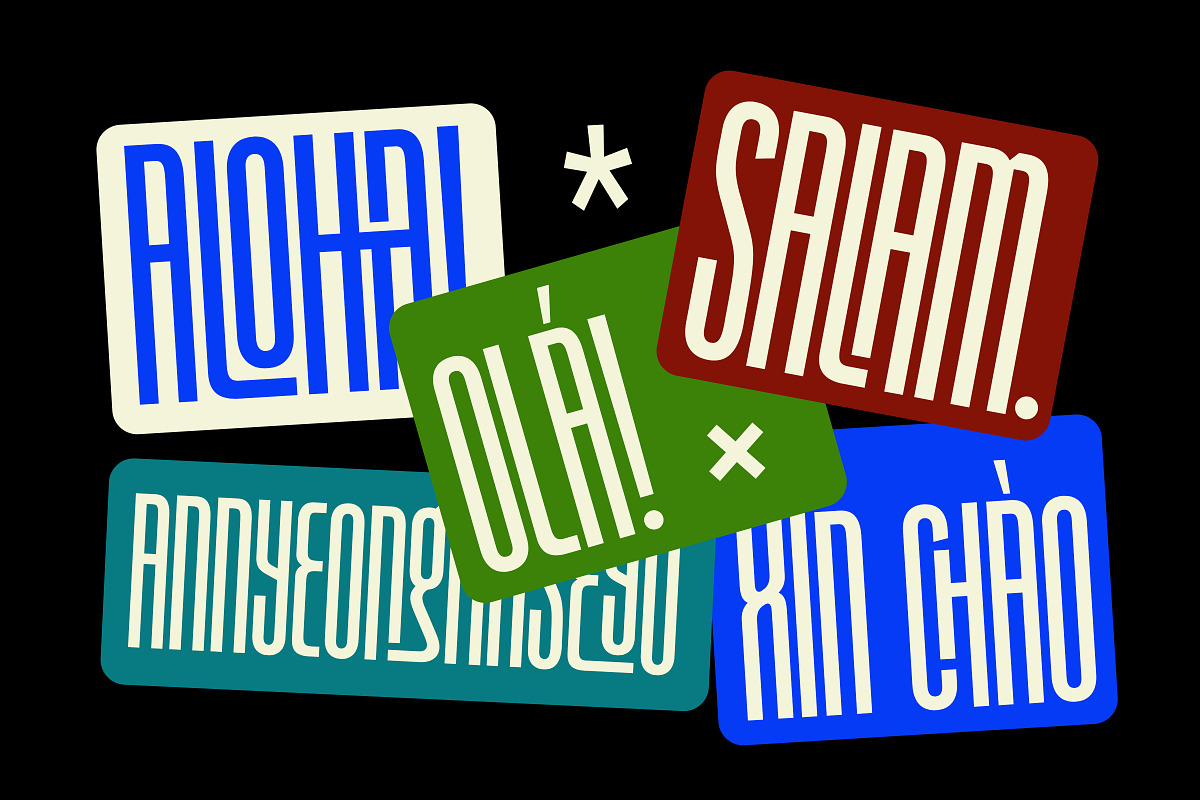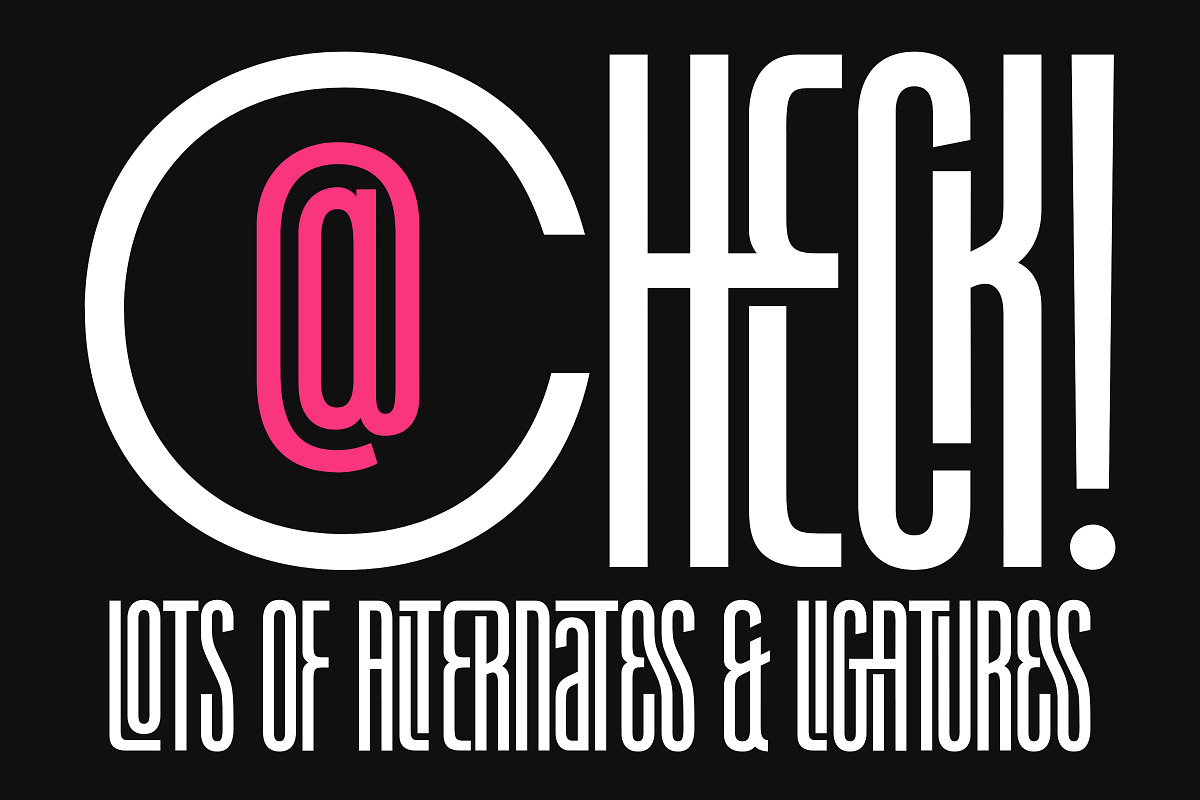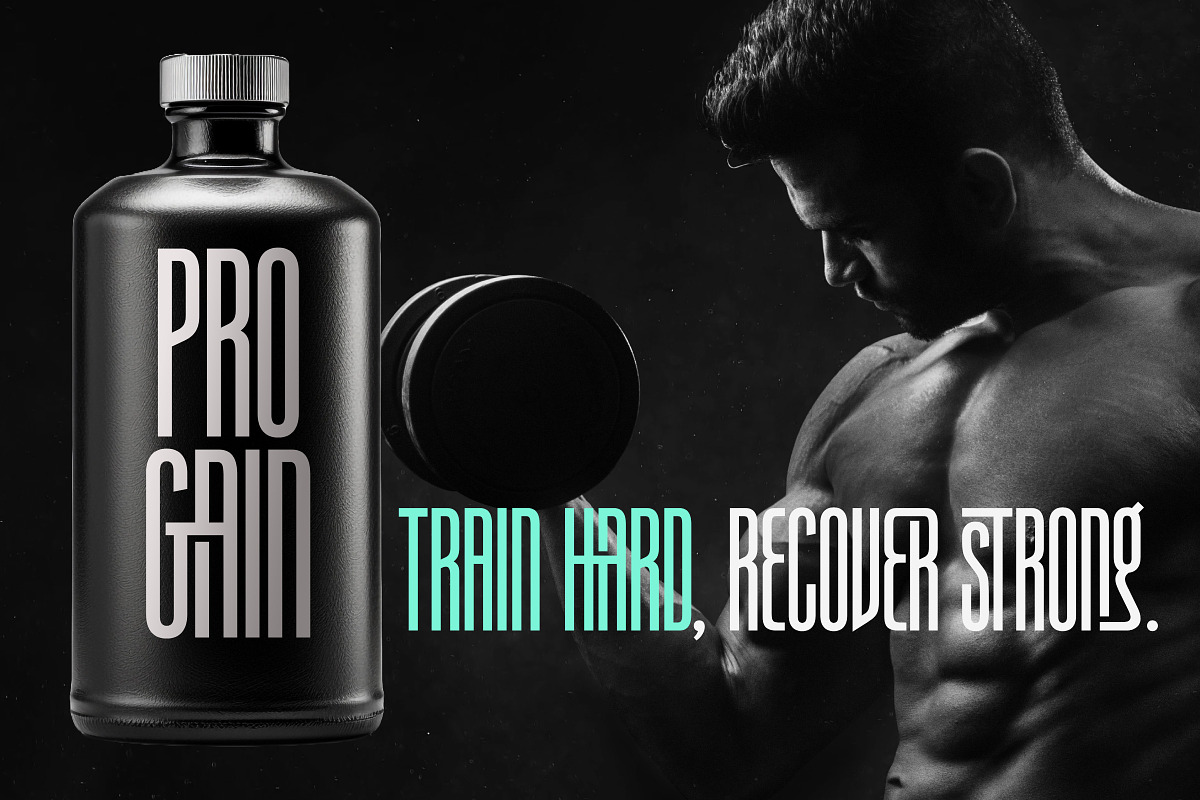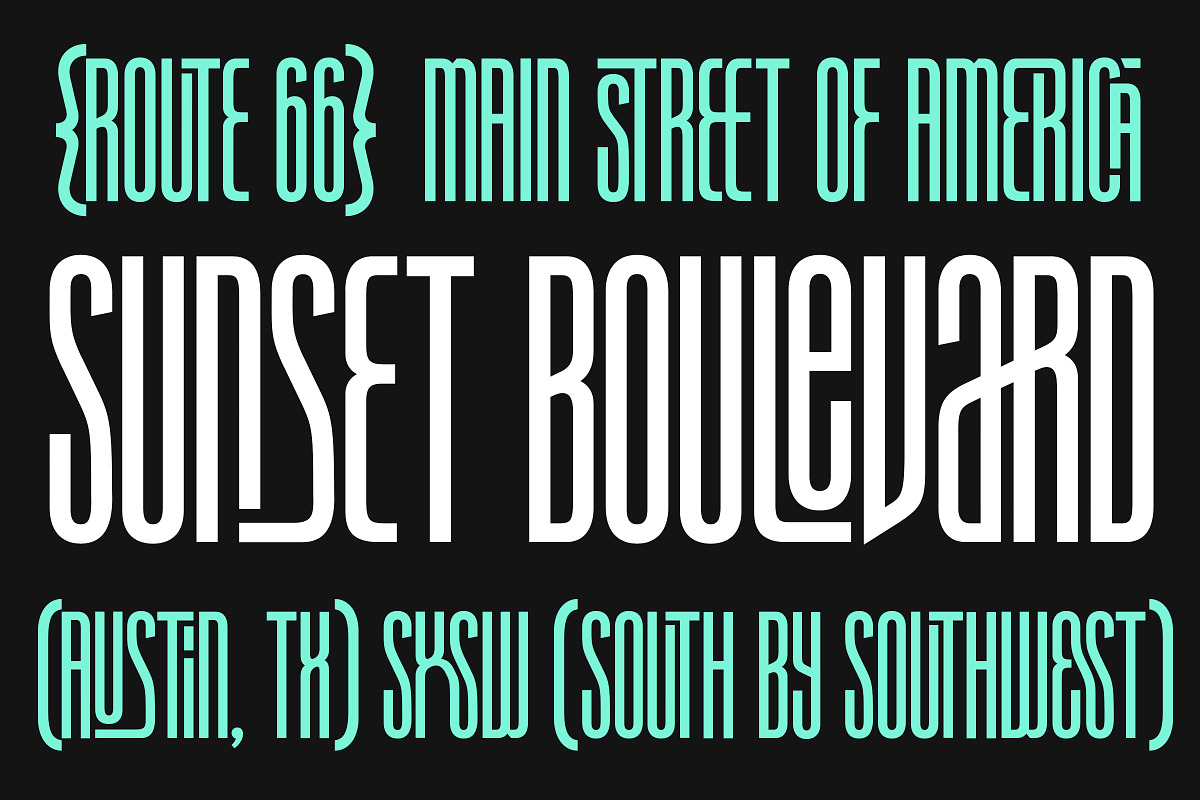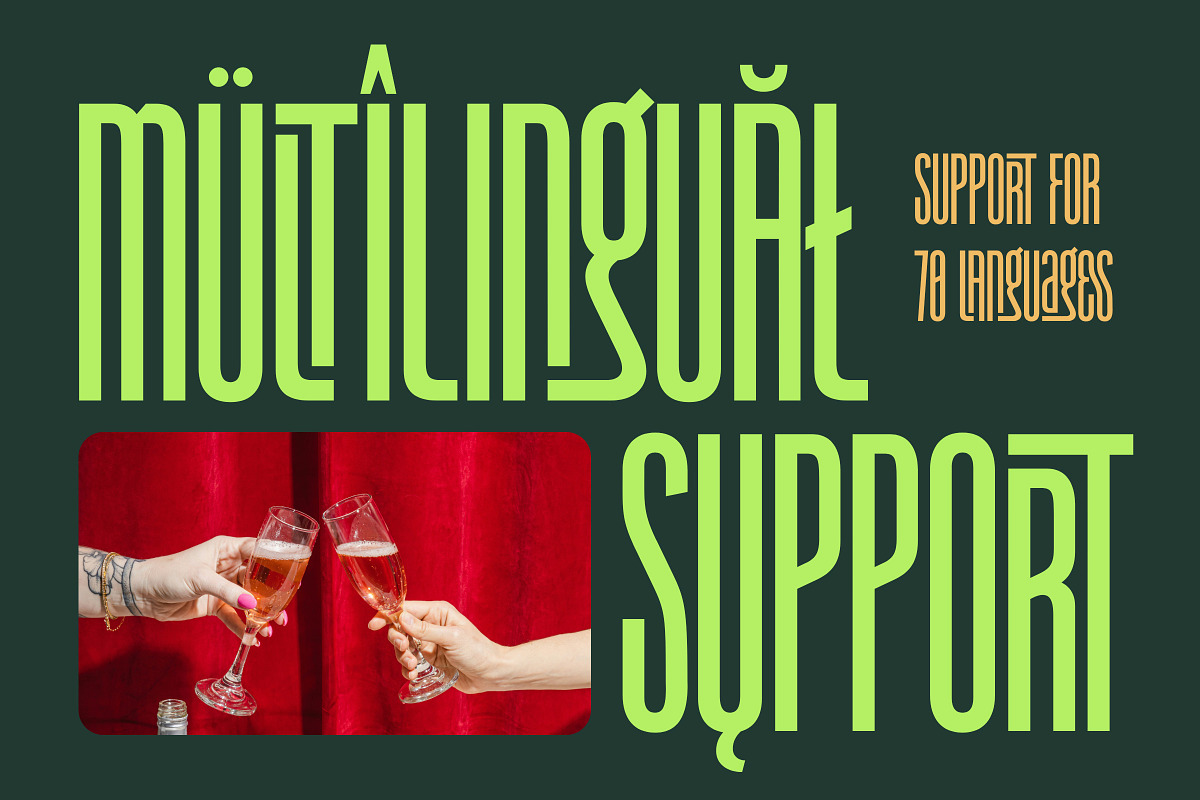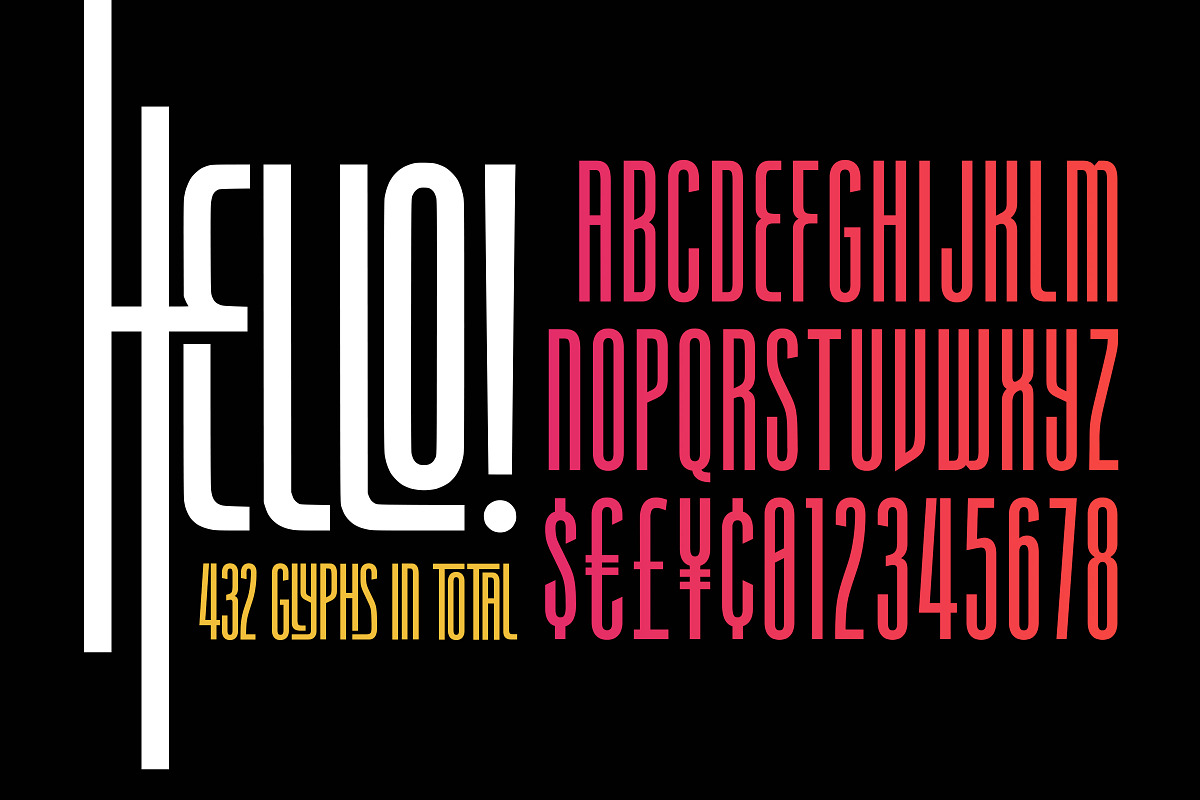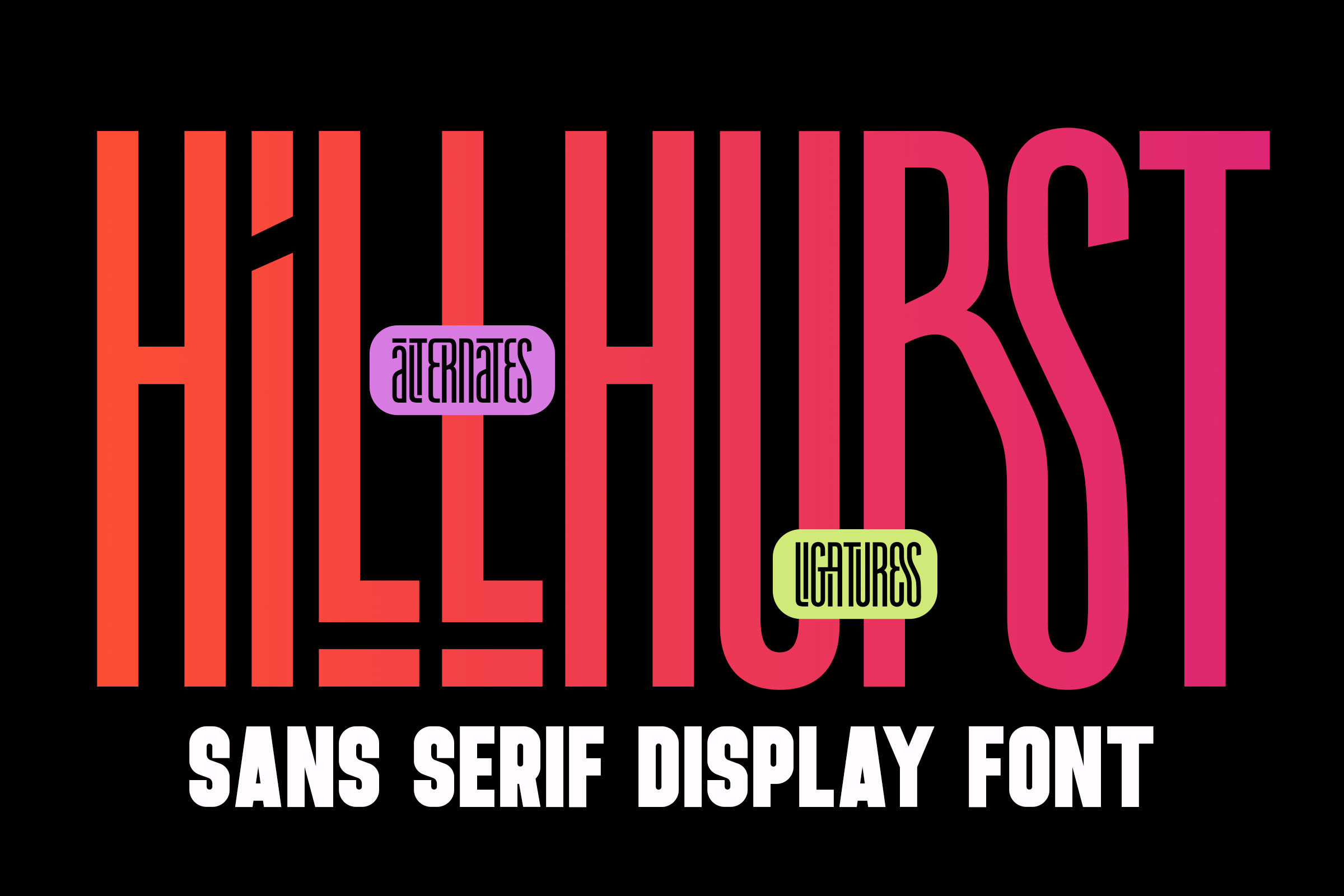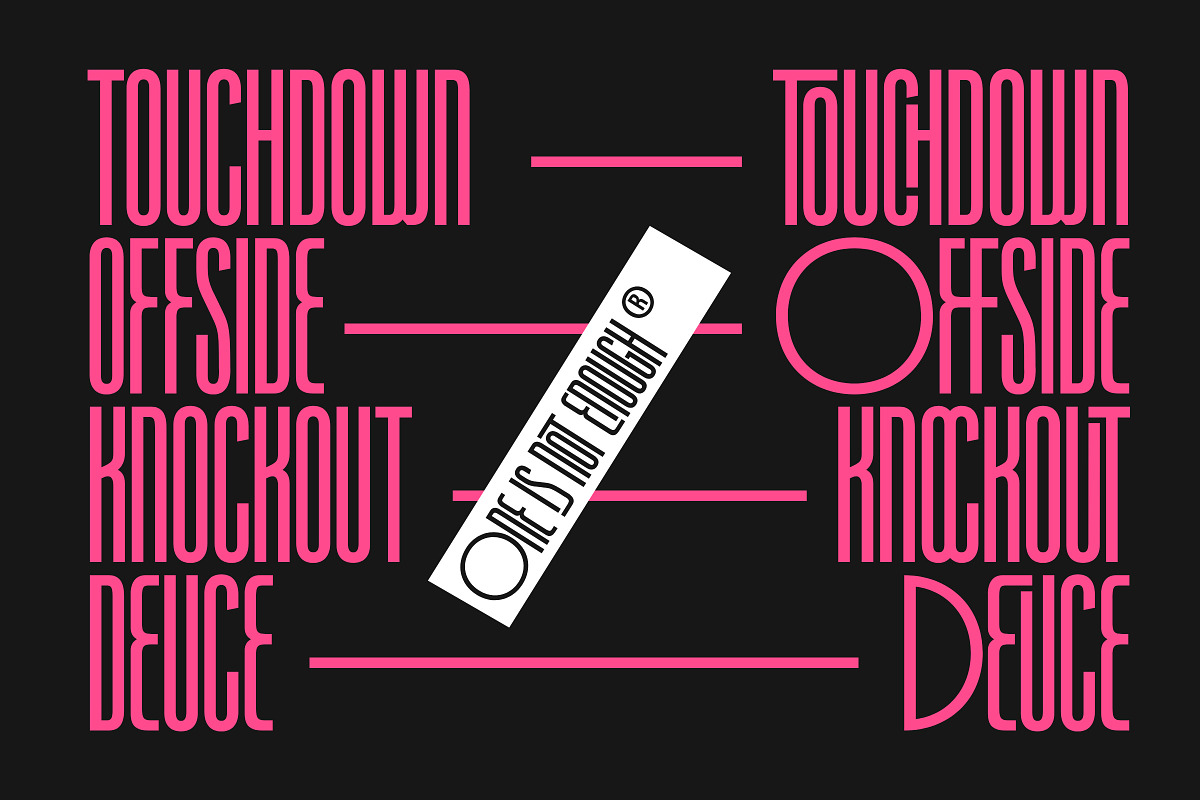
Hillhurst - Sans Serif Ligature Font
Hillhurst is a ligature filled sans serif display font that is absolutely packed with custom features. This font includes dozens of ligatures as well as alternate characters for almost every character.
Hillhurst is perfect for creating engaging titles, editorial designs, advertisements & much more!